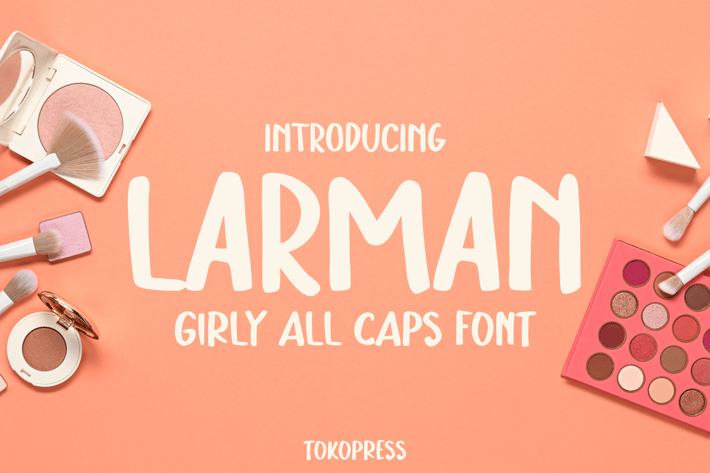
Larman - girly font
Larman - Girly Font
Larman is a stylish all-caps handwritten font with soft brush strokes and gentle contrast, designed for lifestyle branding and expressive, feminine storytelling. With a casual yet confident tone, Larman blends modern brush energy with editorial clarity, featuring slightly irregular forms that add authenticity without sacrificing legibility.
The font’s vibe is expressive, modern, and heartfelt—ideal for Instagram quotes, self-care product packaging, blog graphics, or personal branding. Its natural curves and handwritten rhythm give it a calm but engaging personality.
Whether you're designing quote graphics for social media, creating packaging for wellness products, or building an intimate, approachable brand, Larman helps convey authenticity with a stylish edge. Its elegant brush structure and all-caps design make it perfect for strong feminine voices, lifestyle influencers, or wellness entrepreneurs who want to balance softness with impact.
From thumbnails to thank-you cards and digital templates, this font connects with modern audiences in beauty, fashion, and creative business spaces.
- All-Caps Handwritten Style: Offers a bold yet approachable tone
- Soft Brush Texture: Adds warmth and natural charm to every word
- Versatile Uses: Ideal for packaging, social content, YouTube covers, wellness brands, and cards
- Balanced Expression: Professional yet personal for editorial and marketing use
- Feminine Confidence: Designed to empower and uplift with each character